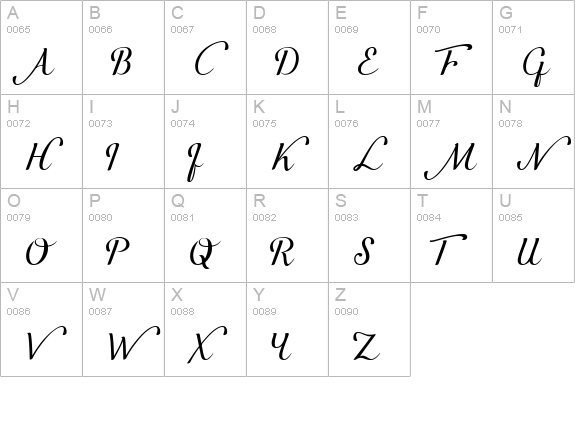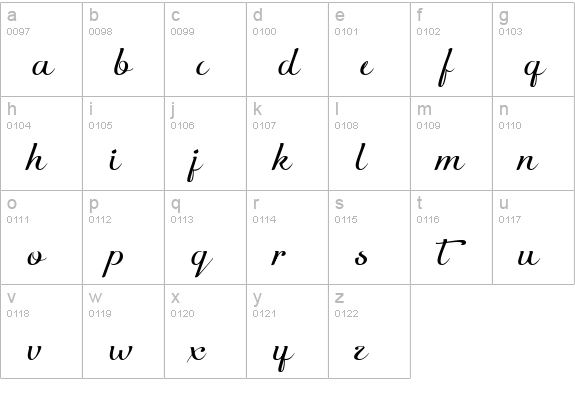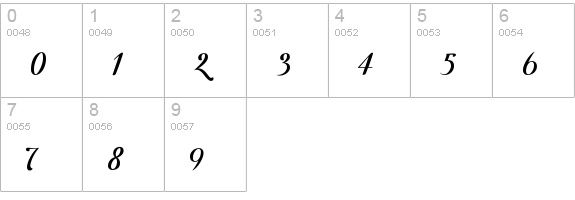
Kikelet Font Details
Kikelet font is a stylish and versatile typeface that embodies elegance and sophistication. Its sleek and modern design makes it perfect for a wide range of creative projects, from logos and branding to headlines and editorial layouts. With its clean lines and balanced proportions, Kikelet font effortlessly blends classic and contemporary elements, creating a timeless appeal. One of the standout features of Kikelet font is its extensive character set, which includes a wide range of ligatures, alternates, and swashes. This allows designers to add a touch of uniqueness and personality to their designs, making them truly one-of-a-kind. But what sets Kikelet font apart is its availability as a free download at FontsMarket.com. Yes, you read that right - Kikelet font is freely available to download and use for both personal and commercial projects. This makes it a valuable asset for designers and creatives who want to add a touch of sophistication to their work without breaking the bank. Whether you're designing a high-end fashion magazine, creating a luxurious brand identity, or simply looking to elevate your typography game, Kikelet font is the perfect choice. Its versatility, elegance, and the fact that it is freely available make it a must-have font in any designer's toolkit. So why wait? Head over to FontsMarket.com and download Kikelet font today, and let your creativity soar to new heights.